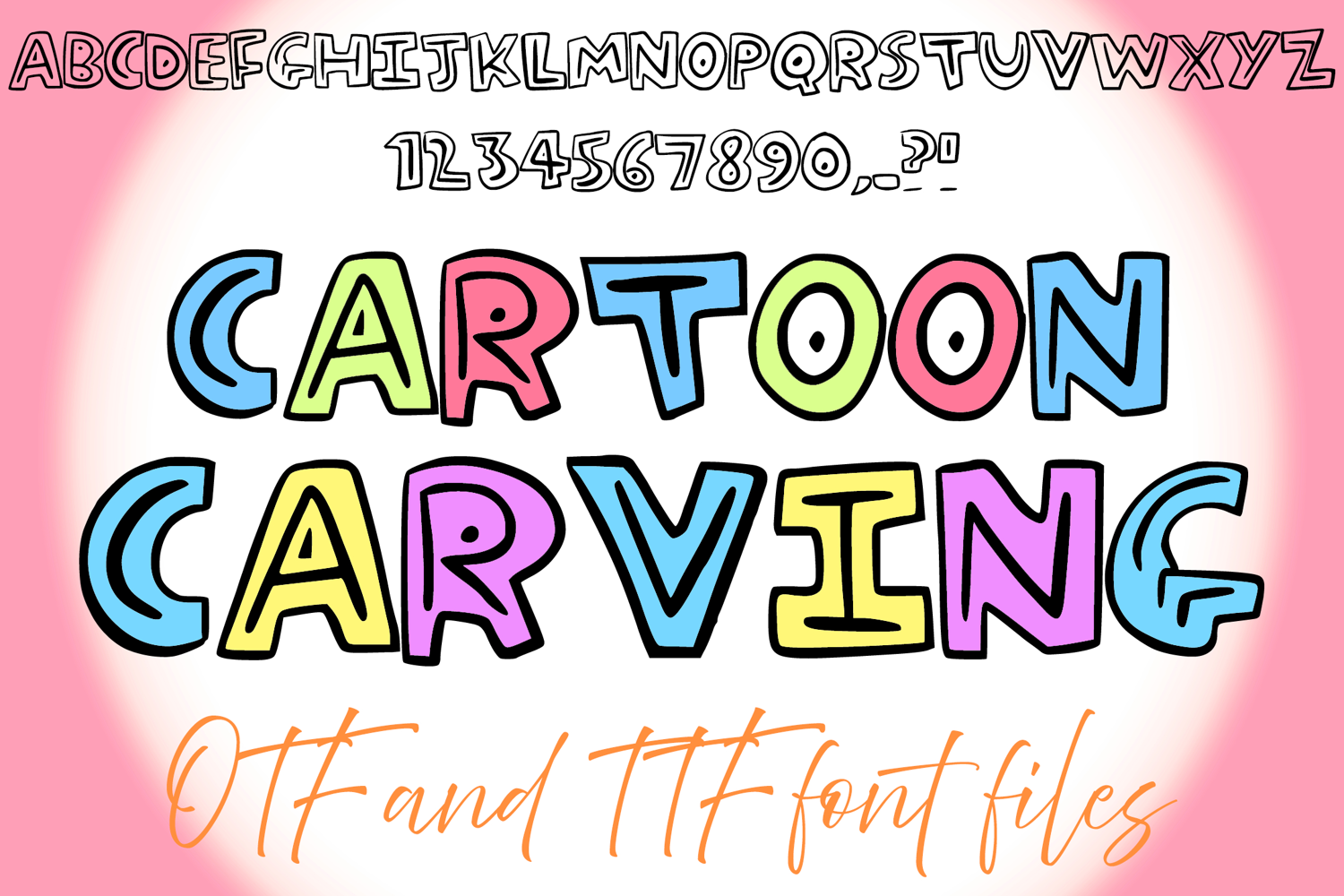
Cartoon Carving Wacky Typeface Lettering ABC Text Font OTF Illustration For Children's Illustration
Contains OTF and TTF file. Capital letters, !?,. and numbers only.